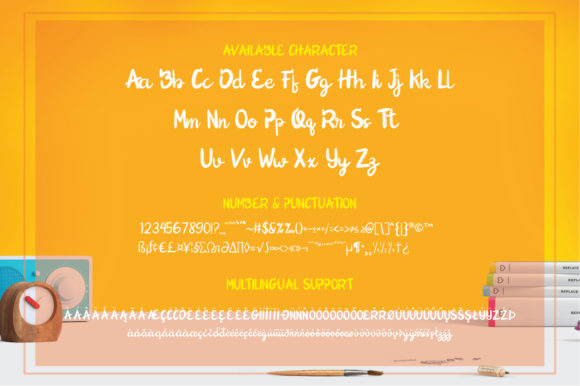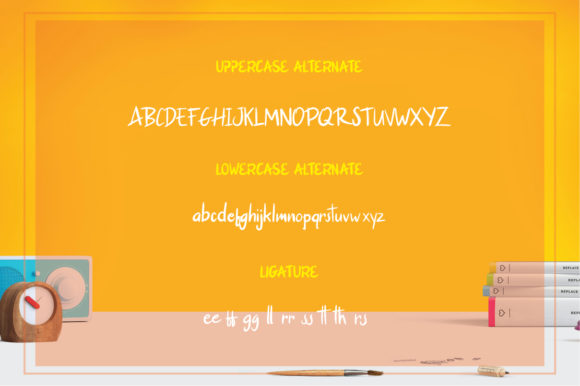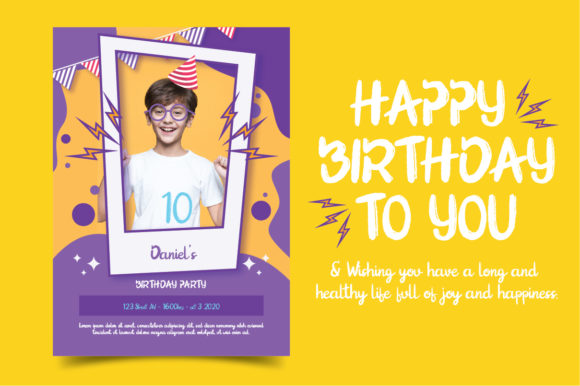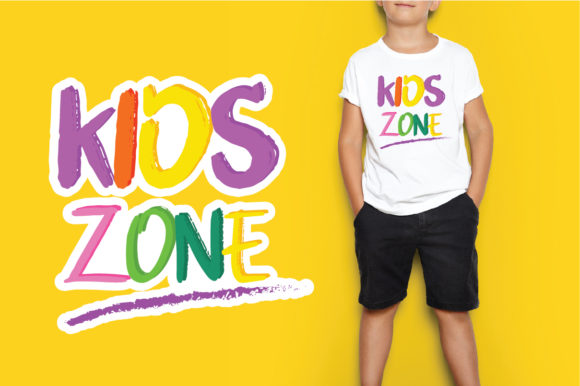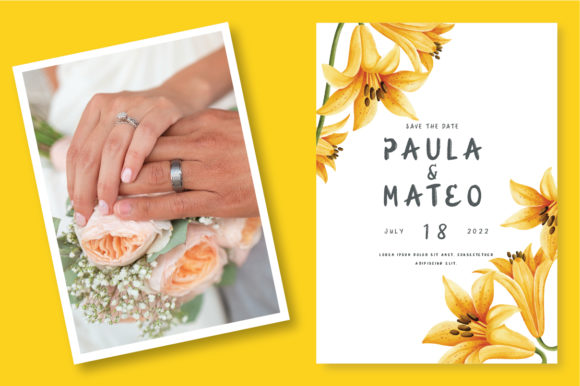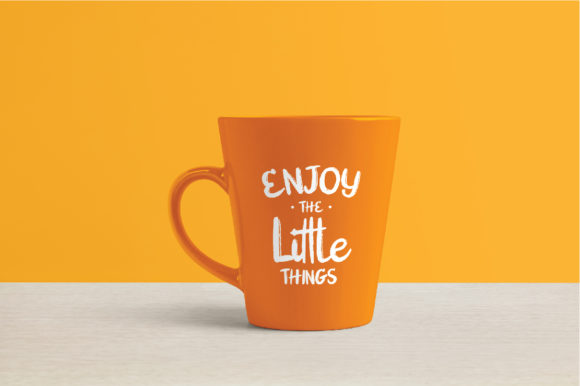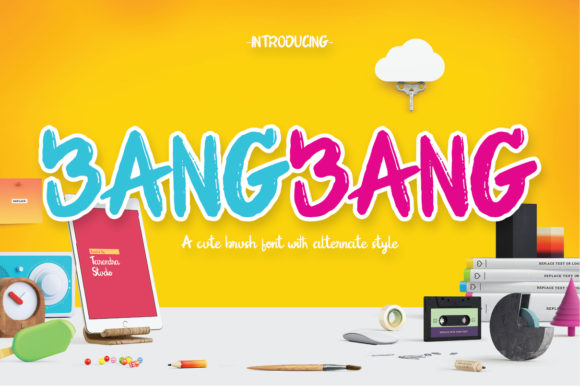
BangBang Font: Elevate Your Designs with a Cute Brush Font
Are you looking for a font that can add a touch of personality and whimsy to your designs? Look no further than BangBang Font! This adorable brush font is perfect for designers and crafters who want to take their projects to the next level. In this article, we’ll dive into the features and benefits of BangBang Font, and explore how it can be used to create stunning designs.
What is BangBang Font?
BangBang Font is a cute brush font that is designed to add a playful and charming touch to your designs. With its unique and hand-crafted style, this font is perfect for a wide range of projects, from branding and headings to wedding designs, invitations, signatures, logos, labels, and more!
Key Features of BangBang Font
• Cute and Playful Style: BangBang Font has a unique and adorable style that is sure to capture the attention of your audience.
• Hand-Crafted Design: Each letter and character in BangBang Font is carefully hand-crafted to ensure a personal and human touch.
• Versatile: BangBang Font can be used for a wide range of design projects, from digital designs to print materials.
• Easily Readable: Despite its playful style, BangBang Font is easily readable, making it perfect for body text and headings.
Benefits of Using BangBang Font
So why should you choose BangBang Font for your designs? Here are just a few benefits of using this amazing font:
• Adds Personality to Your Designs: BangBang Font adds a touch of personality and whimsy to your designs, setting them apart from the rest.
• Perfect for Branding: With its unique style, BangBang Font is perfect for creating memorable and recognizable brand identities.
• Great for Wedding and Party Designs: BangBang Font is a popular choice for wedding and party designs, adding a touch of romance and playfulness to your creations.
How to Use BangBang Font
Using BangBang Font is easy! Here are a few tips to get you started:
• Pair it with Other Fonts: BangBang Font pairs well with other fonts, so don’t be afraid to experiment with different combinations.
• Use it for Headings and Titles: BangBang Font is perfect for headings and titles, adding a touch of personality to your designs.
• Add it to Your Branding: Use BangBang Font to create a memorable and recognizable brand identity.
Design Ideas Using BangBang Font
• Wedding Invitations: Use BangBang Font to create beautiful and romantic wedding invitations.
• Branding and Logos: Create a memorable and recognizable brand identity with BangBang Font.
• Party Decorations: Use BangBang Font to create fun and playful party decorations, such as banners and garlands.
• Signatures and Labels: Add a touch of personality to your signatures and labels with BangBang Font.
In conclusion, BangBang Font is a cute and playful brush font that is perfect for designers and crafters who want to add a touch of personality to their designs. With its unique and hand-crafted style, this font is versatile and easy to use, making it perfect for a wide range of design projects. Whether you’re creating branding, wedding designs, or party decorations, BangBang Font is sure to elevate your designs to the highest level.